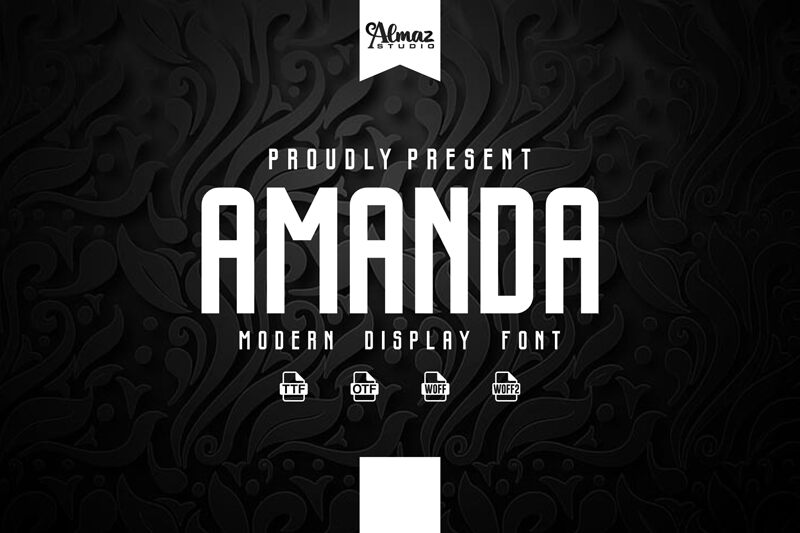
Amanda typeface
Amanda
Almaz Studio
Amanda is a minimalist display font characterized by clean lines and sharp edges, making it ideal for weddings, logos, quotes, print materials, signage, and much more.